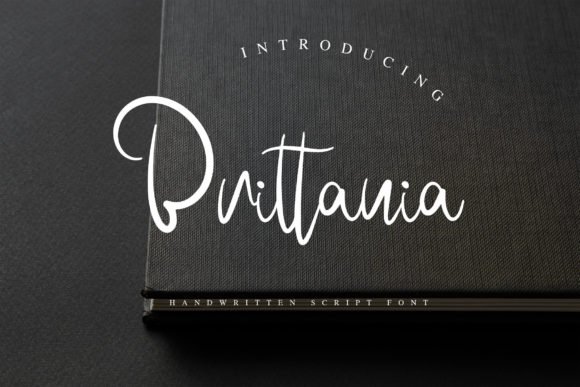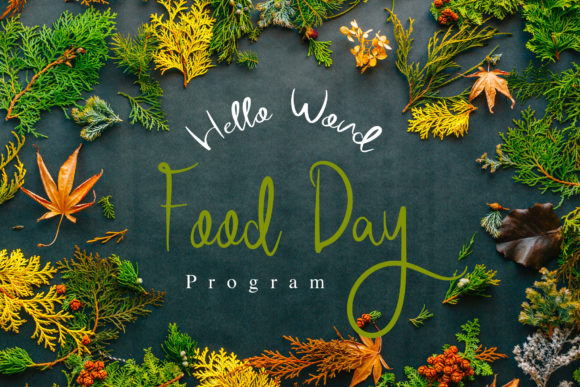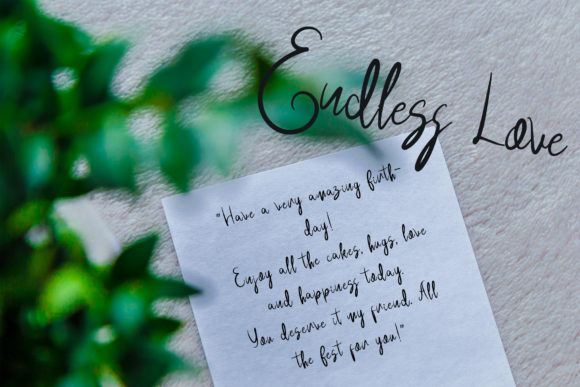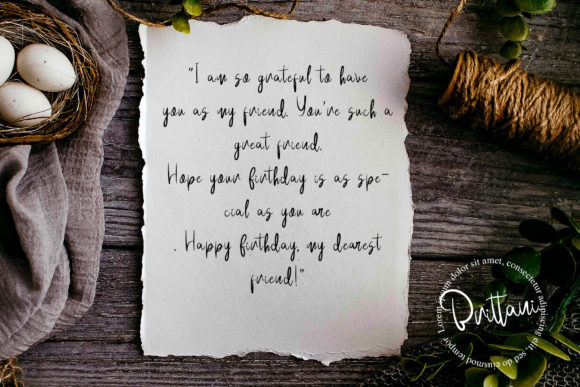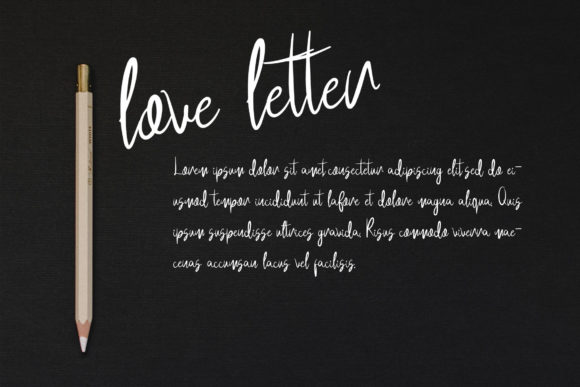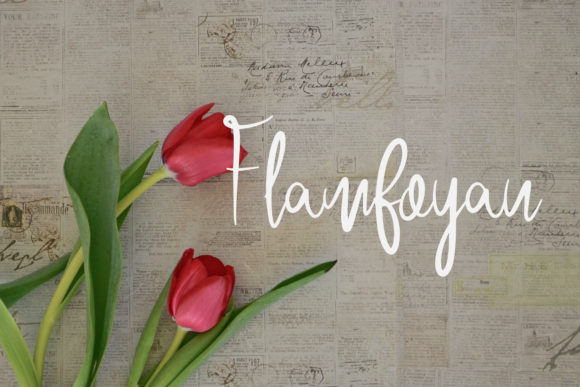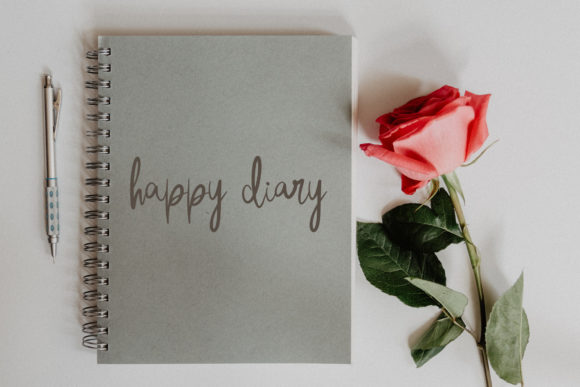
Discover the Magic of the Brittania Font
There’s something special about creating a design that makes you feel like you’re writing a love letter to the world. The way the words flow, the curves of the letters, the delicate balance of style and substance – it’s a moment of pure magic. And for designers, that magic is what makes the Brittania Font truly special.
This elegant calligraphy typeface is designed to add a touch of luxury to any project, from wedding invitations to high-end branding. With its romantic, sweet aesthetic and characters that dance along the baseline, the Brittania Font is the perfect choice for anyone looking to create a truly unique and eye-catching design.
With its PUA encoding, accessing the font’s amazing glyphs and ligatures is a breeze, making it a valuable tool for designers who want to take their work to the next level. Whether you’re a seasoned pro or just starting out, the Brittania Font is sure to inspire your creativity and help you create designs that truly shine.
Brittania Font Key Features
- Unique Characteristics: Brittania Font features a distinctive, elegant design with subtle flair and curved lines, giving it a classic and sophisticated look.
- Font Style: Brittania Font is available in both regular and italic styles, allowing users to create a range of visual effects and add emphasis to text.
Designer Review: Britannia Font
I’ve had the chance to work with the Britannia font, and I must say it’s an interesting piece of typography. ✨ One thing that really stands out is its elegant, classic feel, reminiscent of traditional British signage. It’s perfect for projects that need a touch of sophistication and refinement.
- ✨ Timeless design that evokes a sense of history and tradition.
- ✨ Beautifully crafted letterforms that are both legible and aesthetically pleasing.
- ✨ Supports a wide range of languages, making it a great choice for multilingual projects.
However, there are a few limitations that might hold it back from being a top contender. ⚠️ One major concern is its limited character set. If you’re working on a project that requires a wide range of special characters, you might find yourself struggling to find the right symbol.
- ⚠️ Limited character set may cause issues with special characters.
- ⚠️ Not as versatile as some other fonts, which may limit its use in certain projects.
Overall, I think the Britannia font is a solid choice for projects that need a classic, elegant feel. While it may not be perfect for every situation, it’s definitely worth considering for the right project.
Getting the Most Out of Britannia Font
To get the most out of the Britannia Font, use it for designs that require a classic, elegant feel, such as wedding invitations, business cards, and certificates.
The Britannia Font is commonly used for:
Business cards and letterheads
Certificates and awards
Formal event invitations and programs